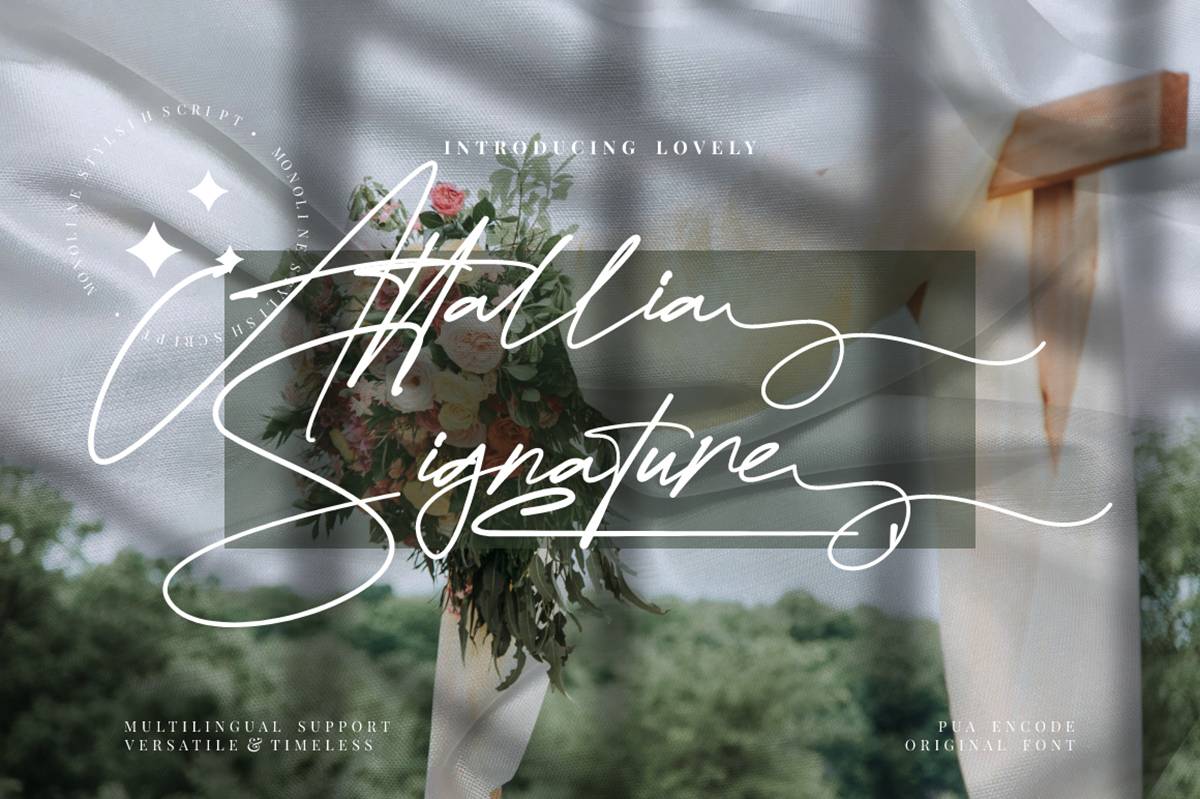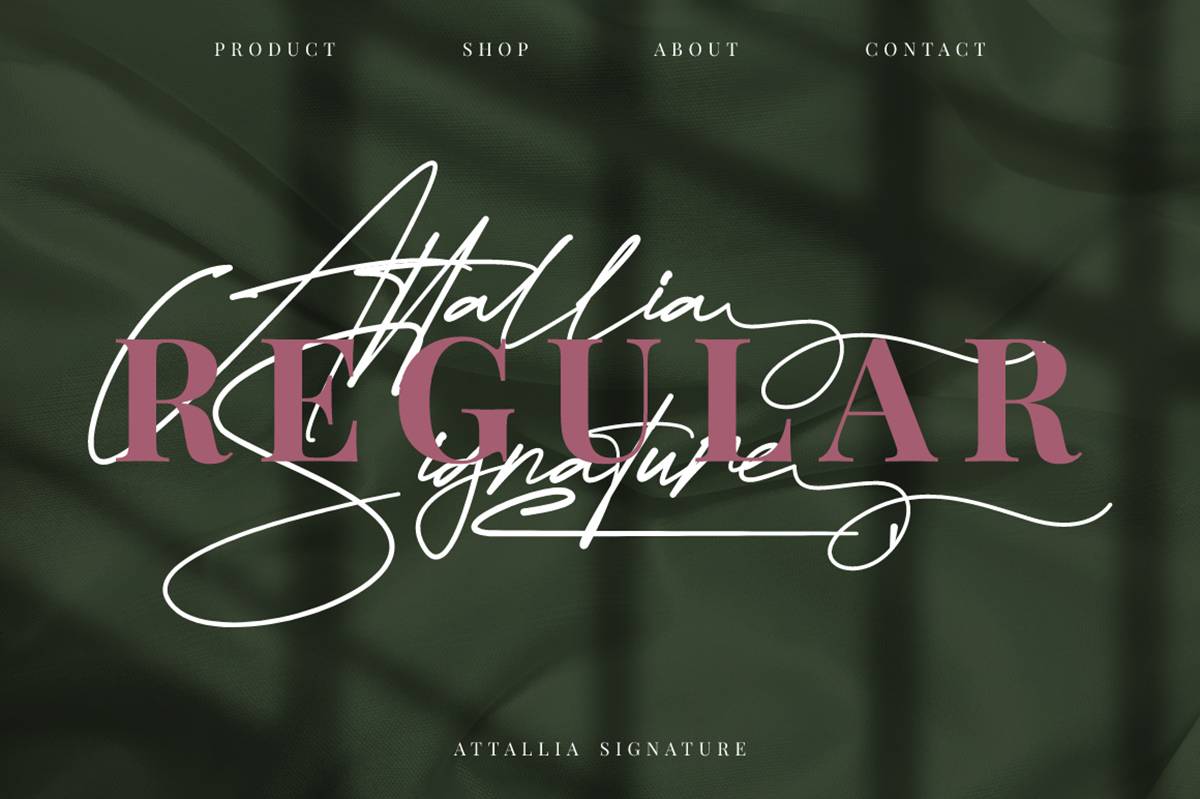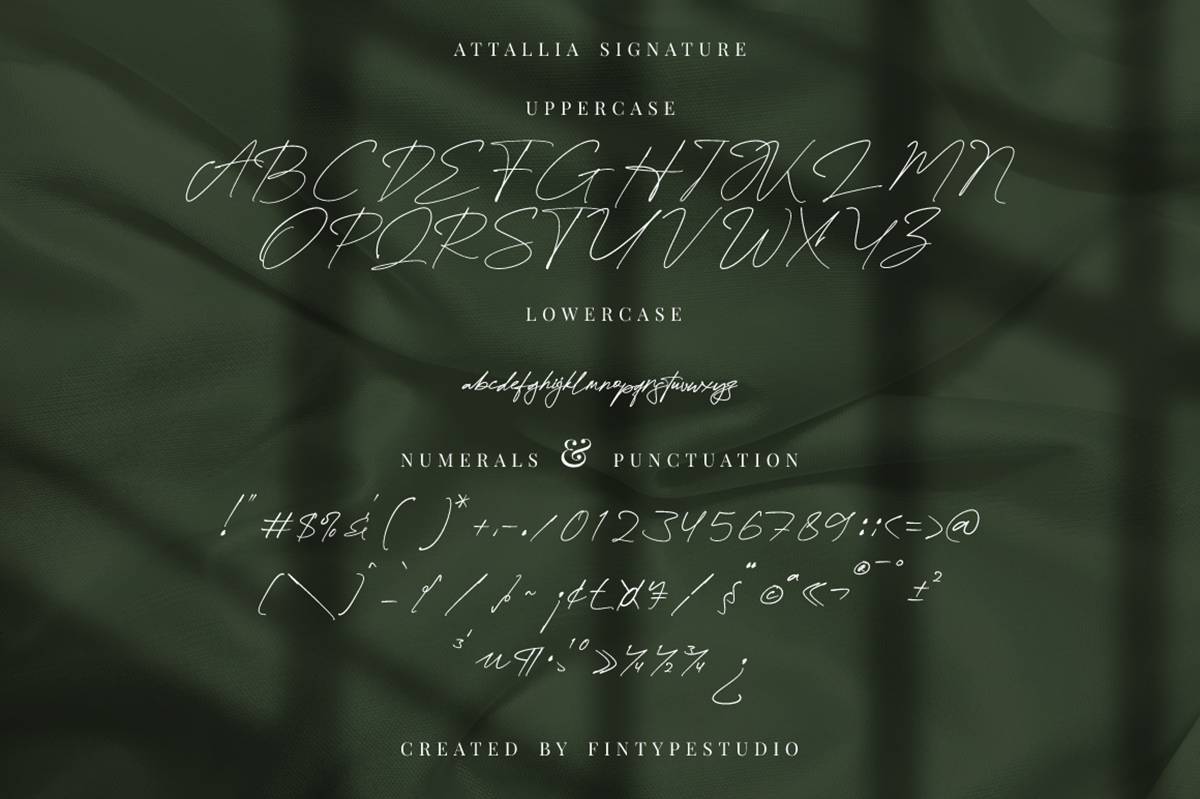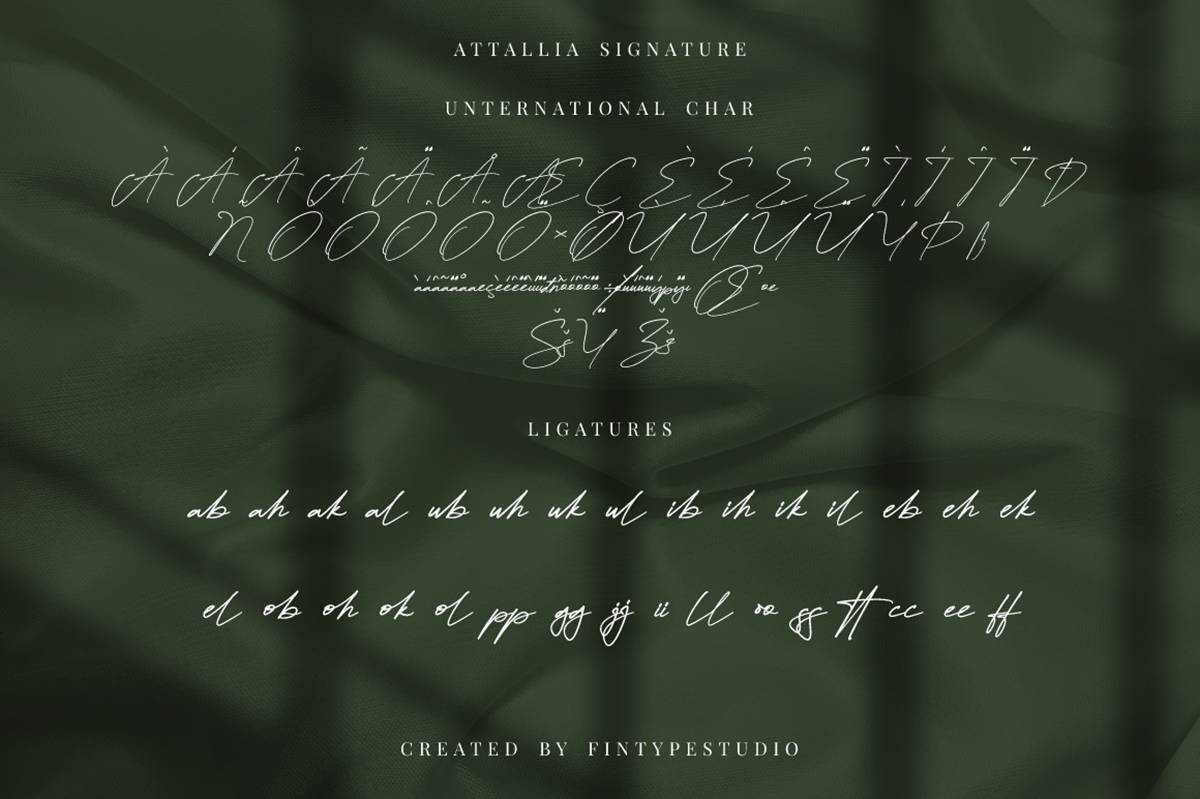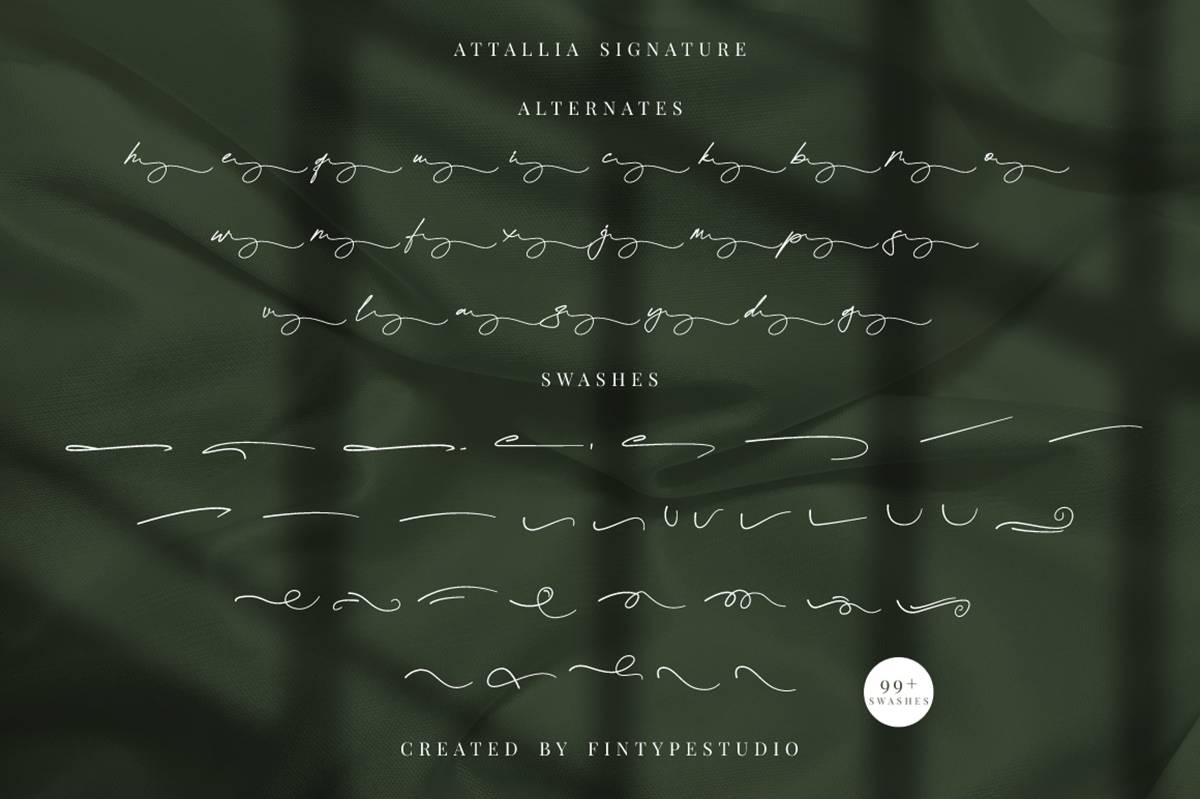
Attallia Signature Font is an elegant, delicate script that mimics natural handwriting with slender, flowing lines and a refined, airy feel. Its light weight and graceful curves make it perfect for sophisticated branding, invitations, and logos where a personal, stylish touch is desired. This font works best in settings that benefit from a handwritten, luxurious vibe, adding charm and uniqueness to any design.
Attallia Signature Font
About Attallia Signature Font
| Font family | Attallia Signature Font |
| Designer | FinTypeStudio |